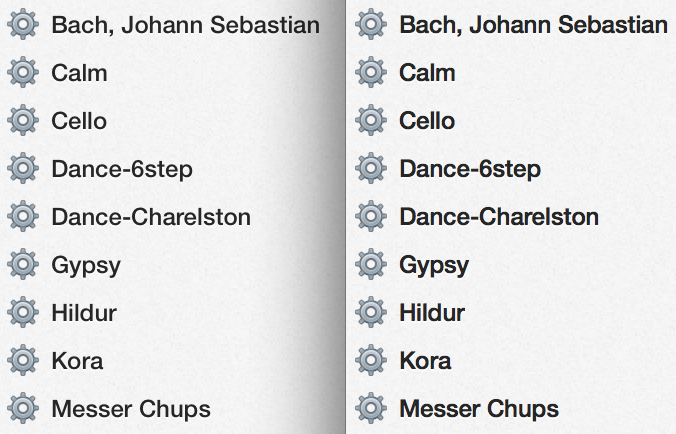
I've had my 13" rMBP for a few months now, and just tried turning off font-smoothing (system prefs>general, then log out and back in). The text looks way better than before - even sharper, less chunky, and there's certainly no need for 'smoothing'. Anyone else tried this and agree (or not)?
Nah, I prefer my text to look bolder, with this off text looks sharp pencil and faded. This is with a Samsung display on a 15" Retina, again, best for retina setting.
Hm, interesting I never thought to try this, the difference is pretty subtle, a wonderful testament to the pixel density of the retina display!!!
Left = OFF | Right = ON (default) -- zoom to 50% to see it as intended
I just turned it off and it looks just fine. However, I'm wondering how things will look on my not so retina external display once I get back to work...
One of the main points of a retina display is to make font smoothing techniques unnecessary, right?
Should be. Makes me wonder why is it turned on by default?
Should just be an option "enable font smoothing for external displays"